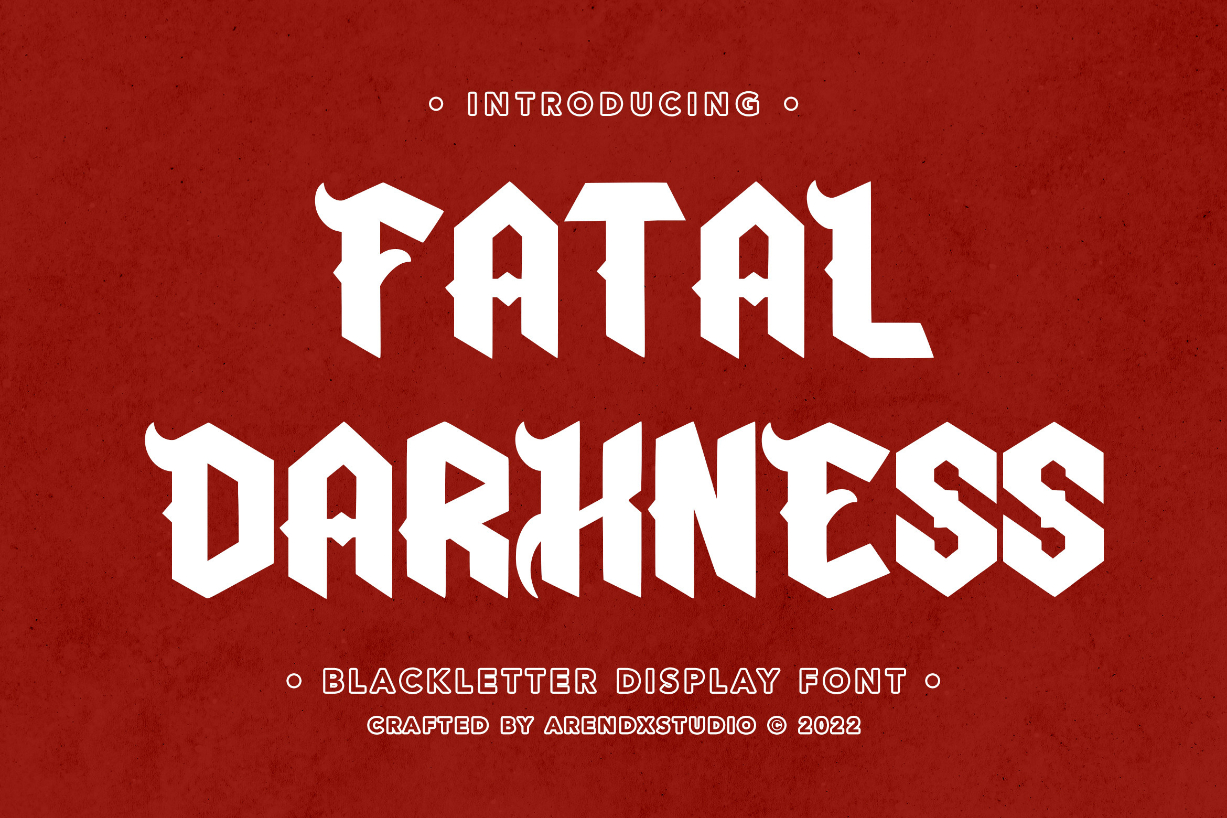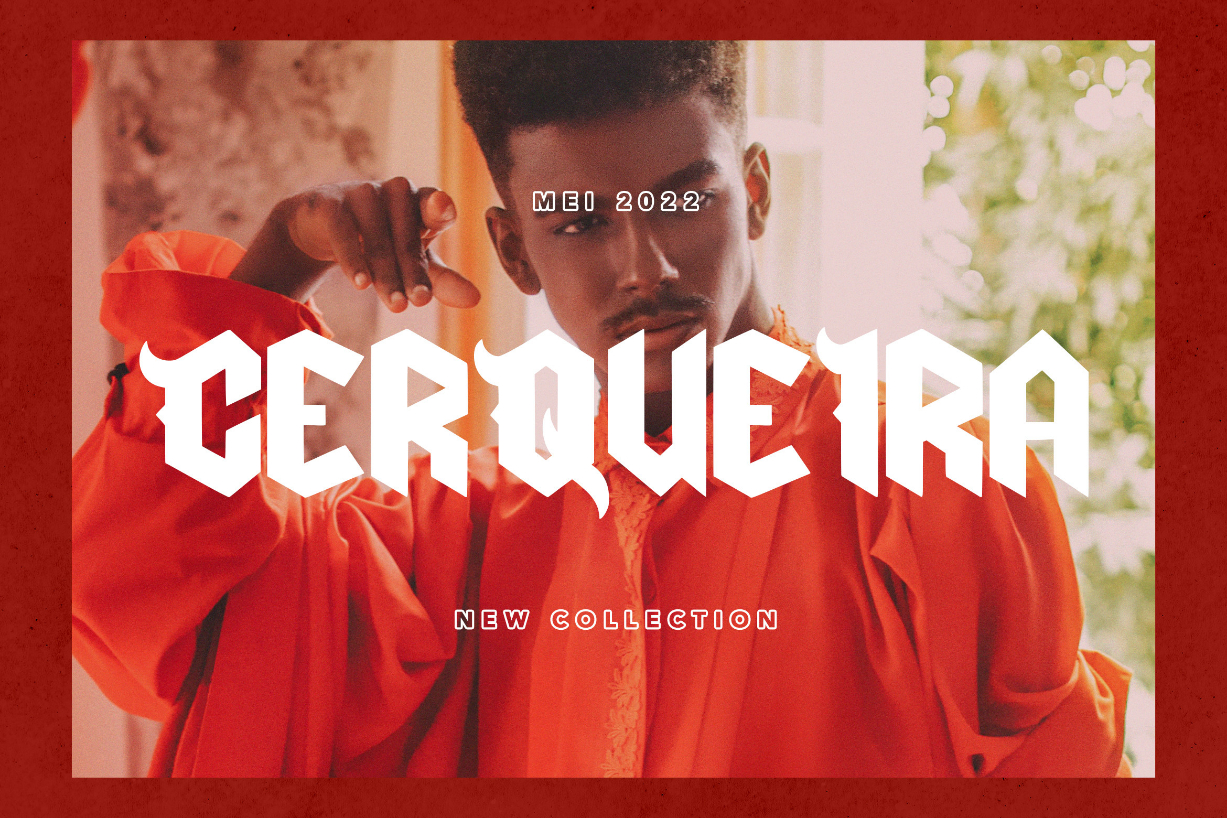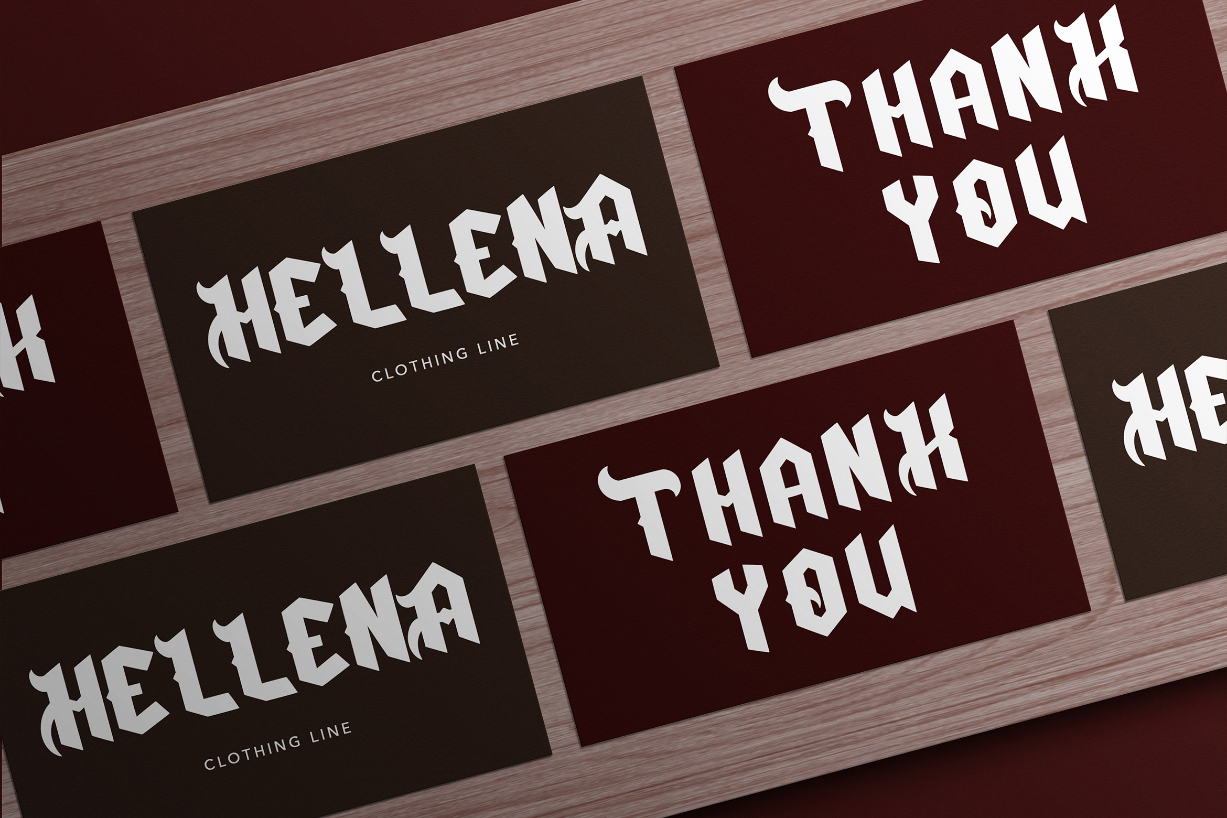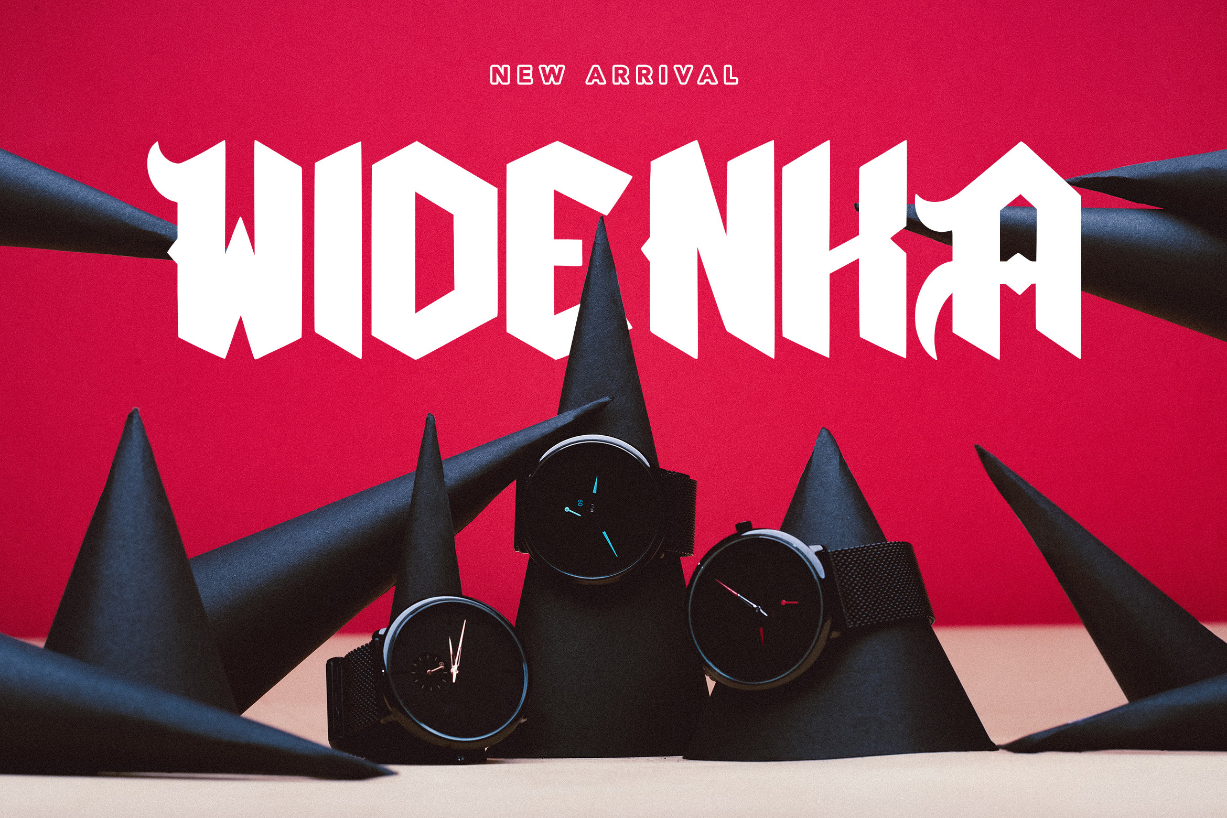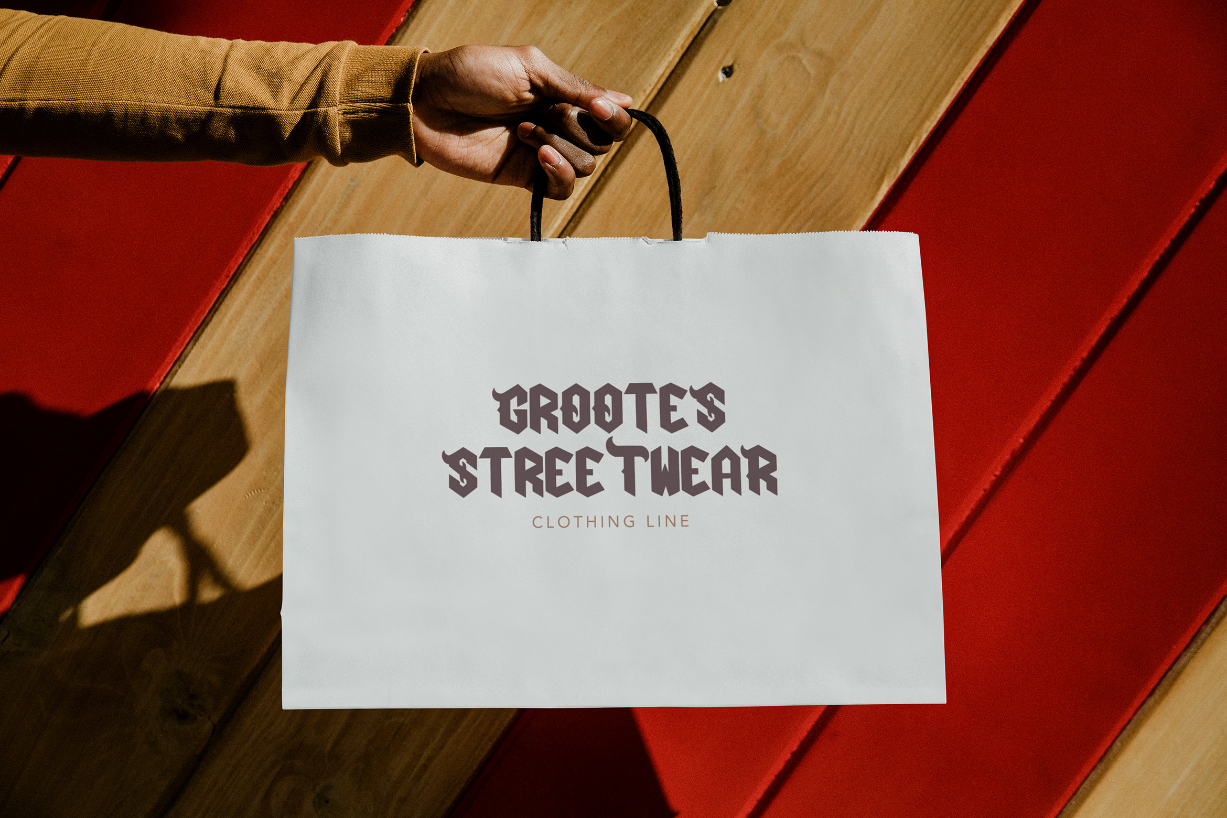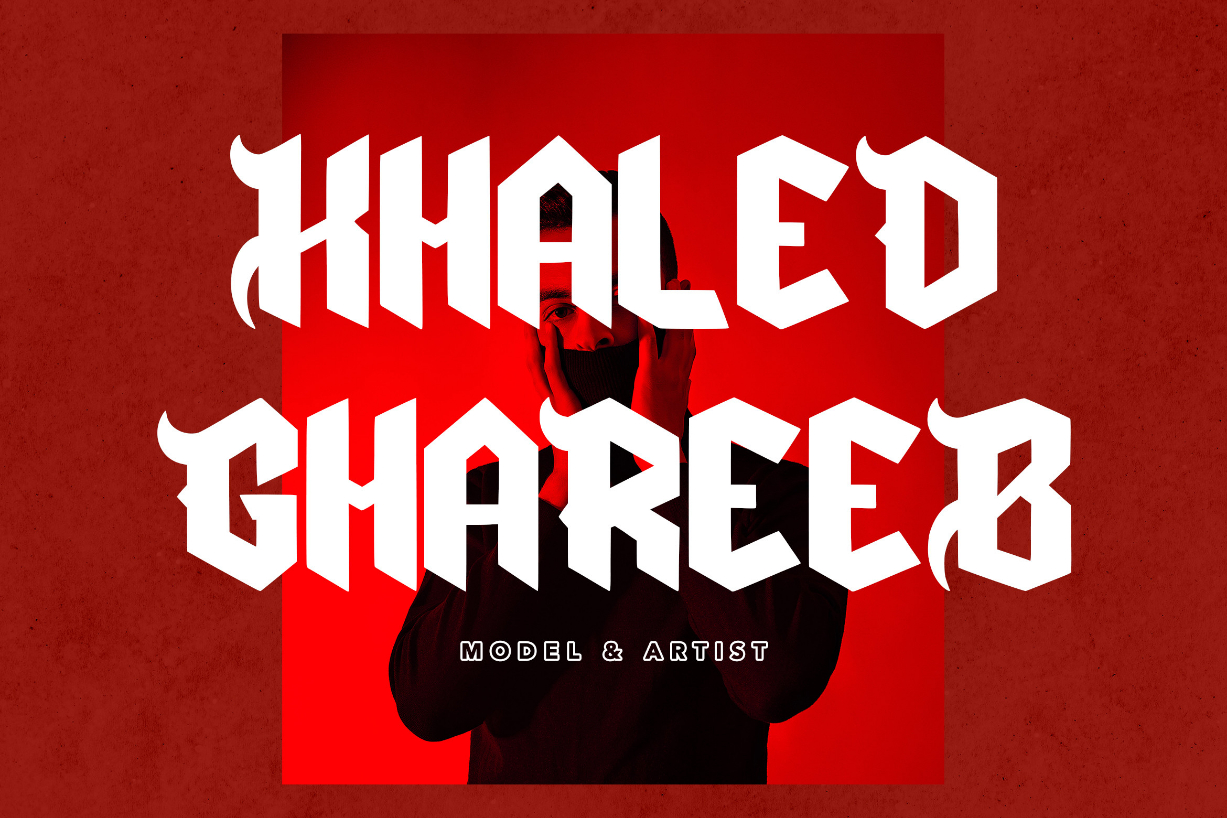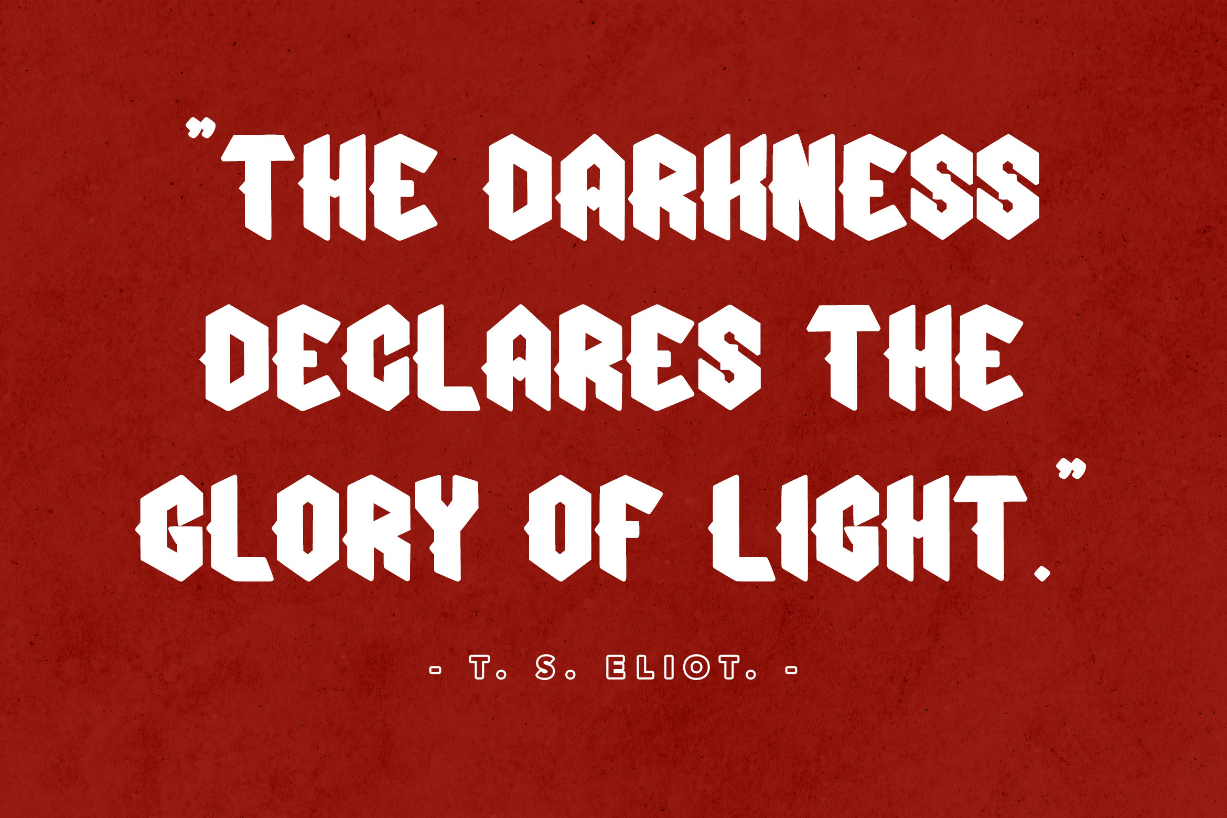
Fatal Darkness Font
About Fatal Darkness Font
Fatal Darkness – Blackletter Display Font is a display font that is inspired by gothic and horror styles because its shape is very unique and is perfect for any project that you will use with this theme.